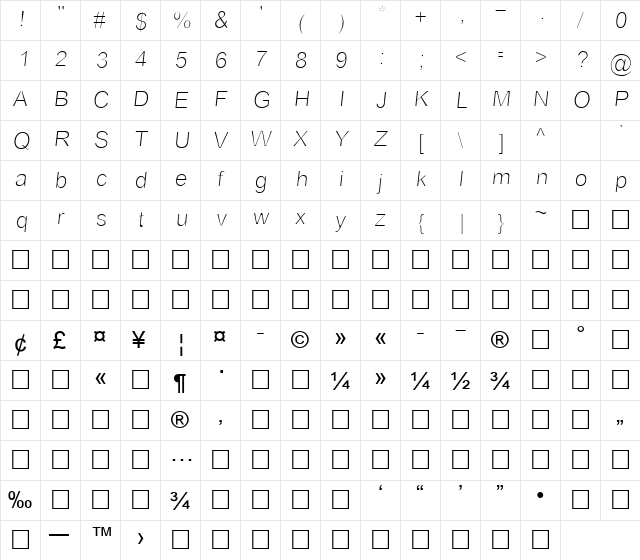
Alice2 Unicode Regular
Alice2 Unicode brings the precise, column-aligned rhythm of monospaced typography to designs that value technical clarity and systematic order.
Pro Tip: Pair Alice2 Unicode with a proportional sans for UI contexts where code-style labels and regular body copy need to coexist.